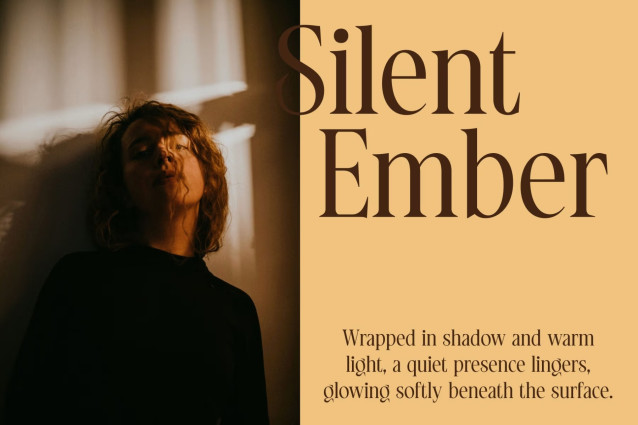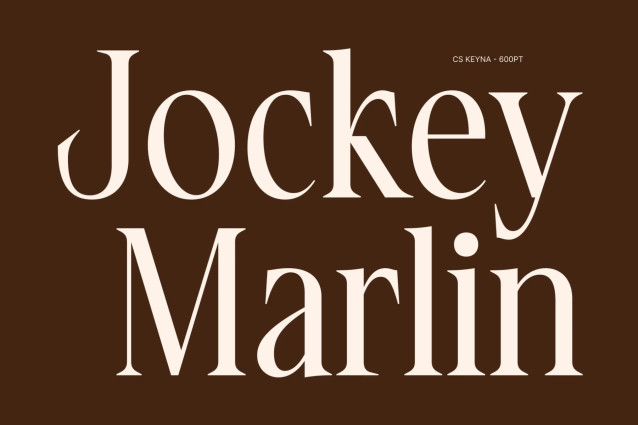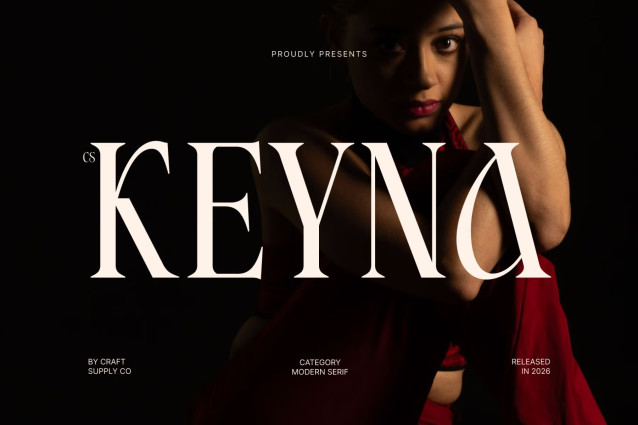
CS Keyna – Modern Serif Font
CS Keyna – Modern Serif Font: Where Editorial Elegance Meets Timeless Luxury
Modern Serif Font with Refined Sophistication
This is a modern serif font featuring elegant proportions, fine wedge serifs, and beautifully refined letterforms. Its balanced high-end construction creates a graceful rhythm that feels sophisticated, polished, and timeless. Every character is carefully crafted to deliver exceptional readability while expressing understated luxury.
Luxurious Design with Editorial Inspiration
This font blends contemporary precision with classic serif elegance. Its delicate serif details and refined structure create a clean yet expressive appearance, making it an ideal choice for projects that require a luxurious and fashion-forward aesthetic. The result is typography that feels exclusive, stylish, and effortlessly modern.
Timeless Typography with Premium Appeal
Designed to elevate sophisticated visual identities, that creates a distinctive presence across both print and digital media. Its elegant letterforms communicate confidence, quality, and refinement, making every headline, logo, and brand message feel memorable and prestigious.